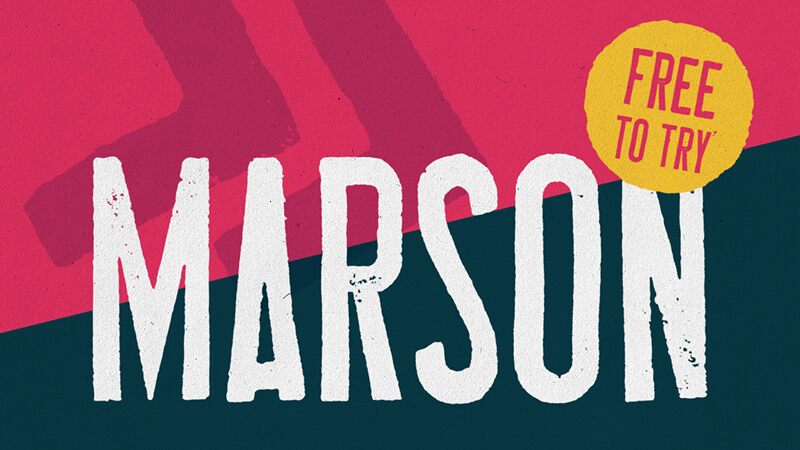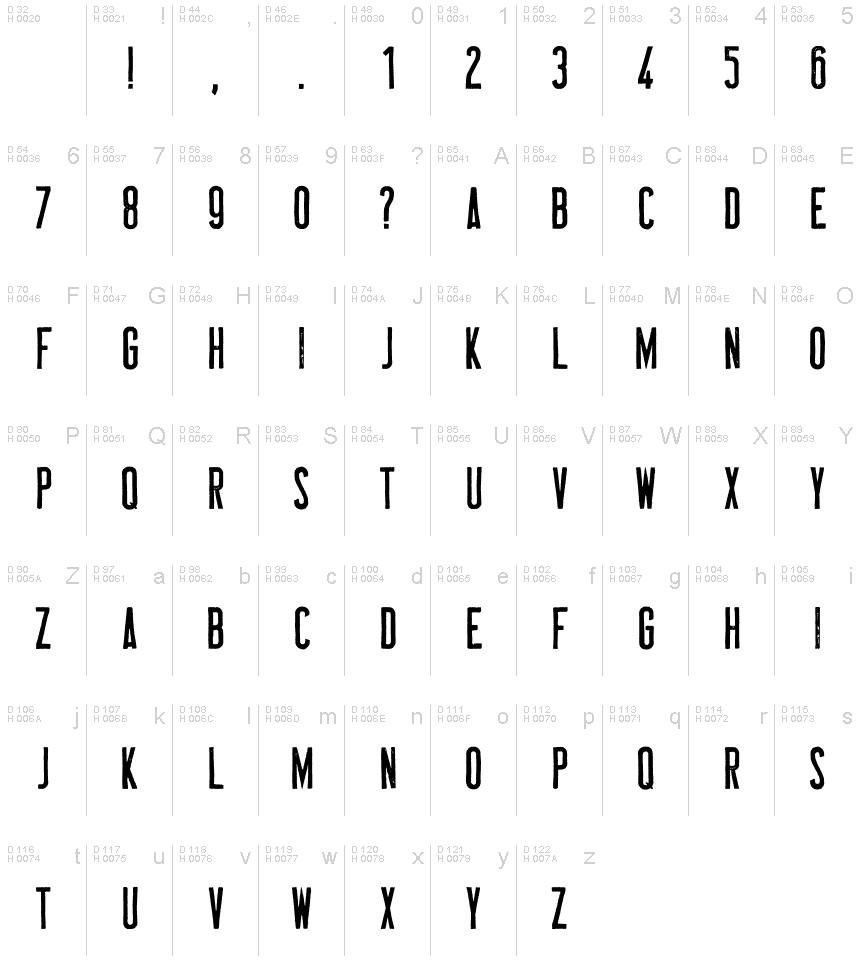
MARSON Free
Marson is a strong condensed display font in 3 styles designed by Marcel Schönebeck.
It's made from old rubber-stamps.
Works great in branding, logotype, editorial, films, packaging